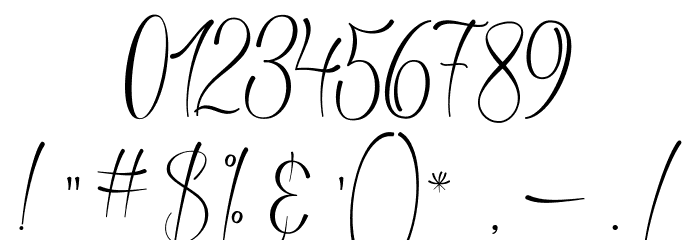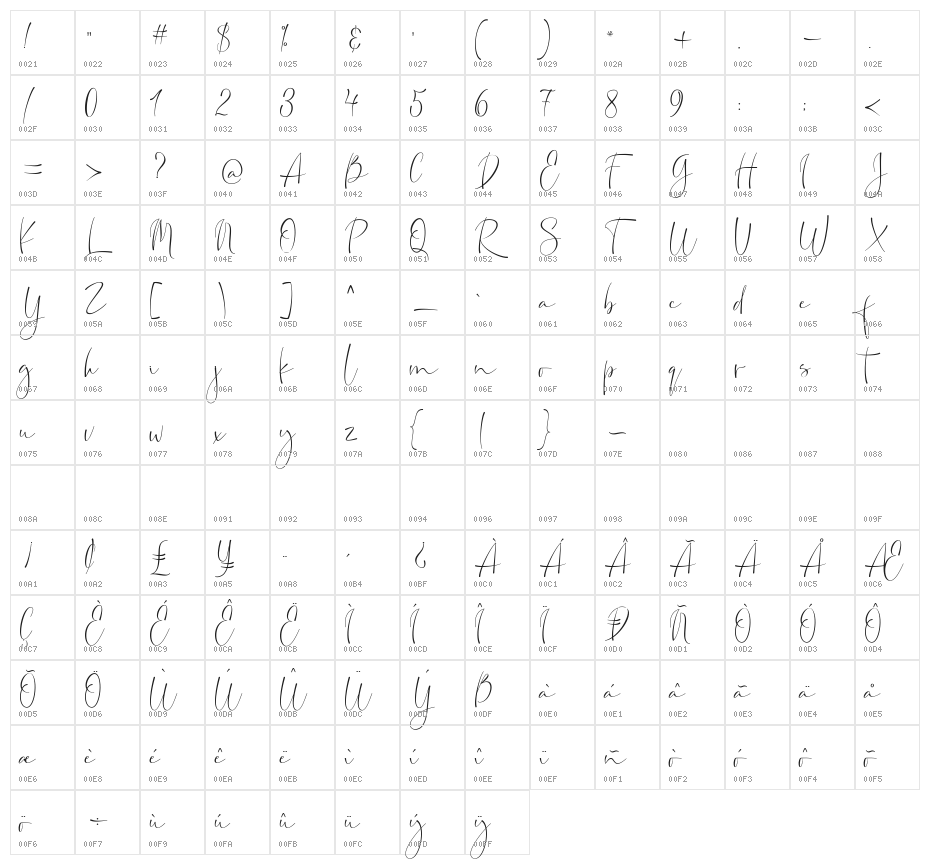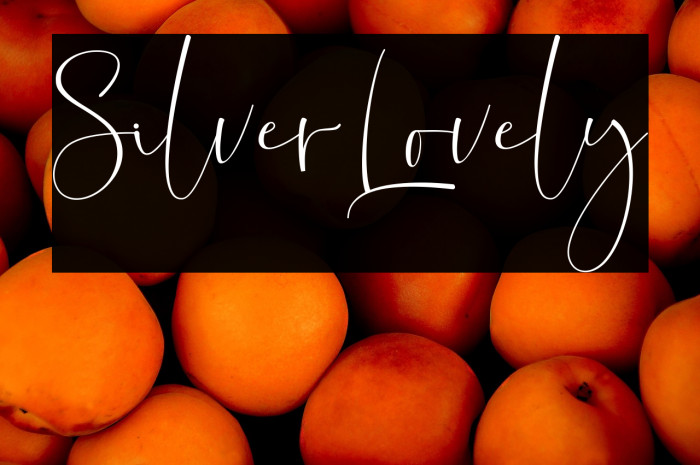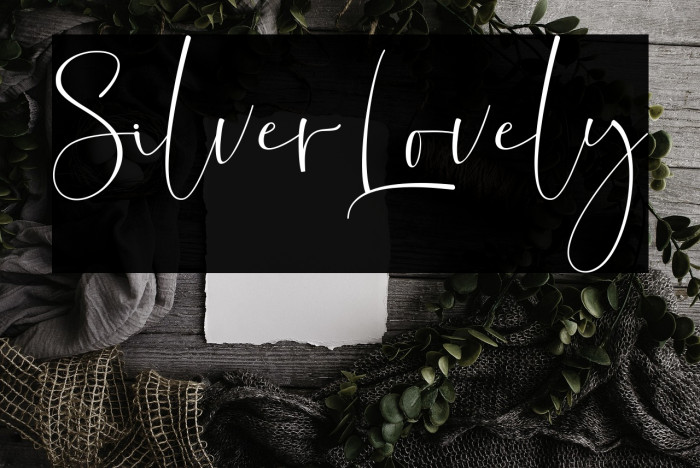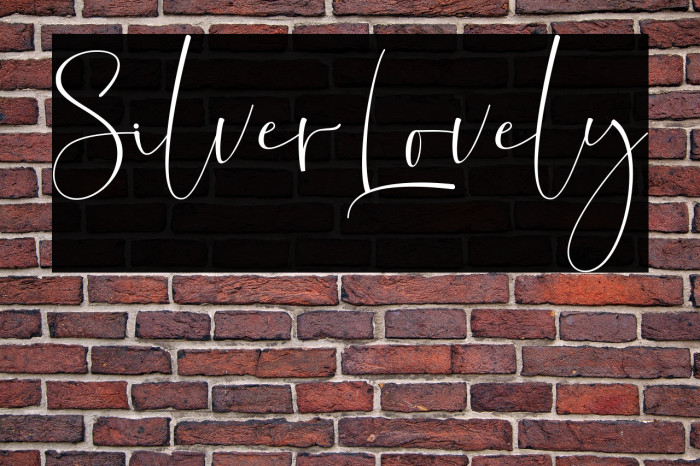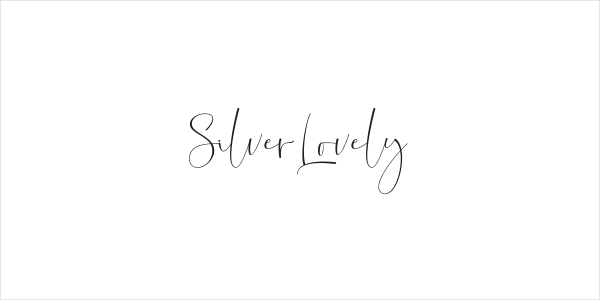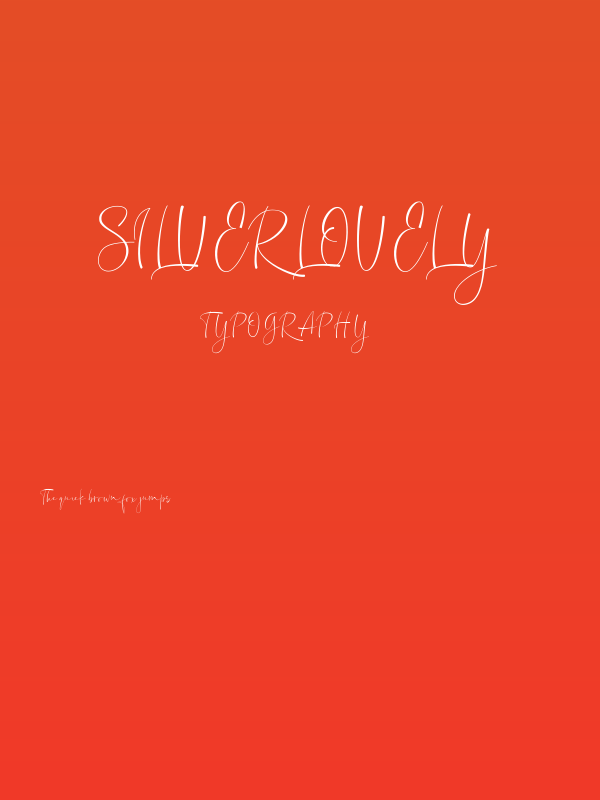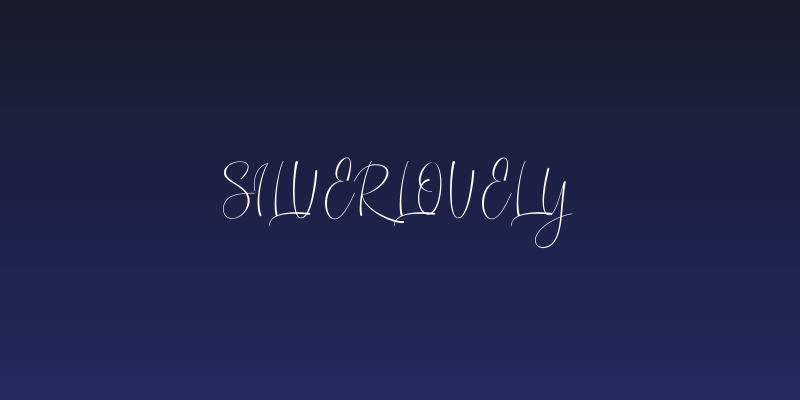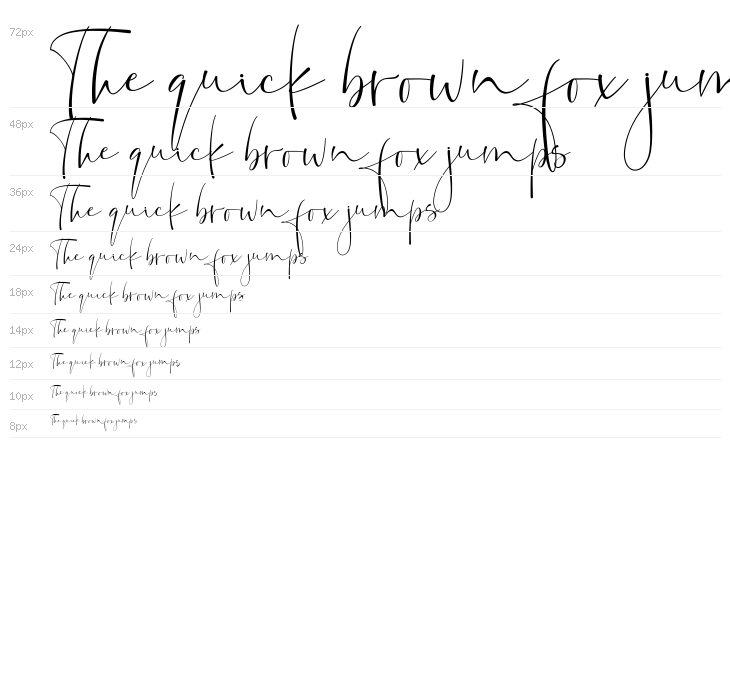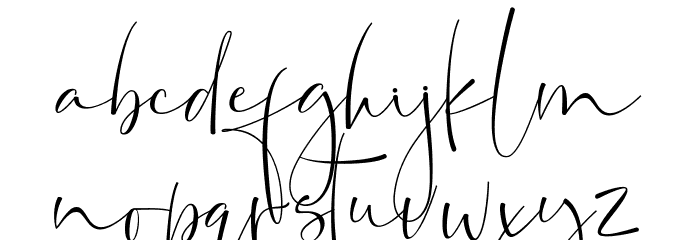
SilverLovely Font
SilverLovely Description
This font exudes a whimsical and elegant charm, characterized by its flowing, cursive style. The letters are interconnected with smooth, sweeping strokes that give it a handwritten feel. The uppercase letters are tall and slender, while the lowercase letters maintain a consistent flow, enhancing its graceful appearance. The numerals and special characters are crafted with the same fluidity, ensuring a cohesive look throughout. This font is perfect for adding a touch of sophistication and personality to any project.
| Proposed Projects | Ideal for wedding invitations, greeting cards, personal branding, and decorative quotes. |